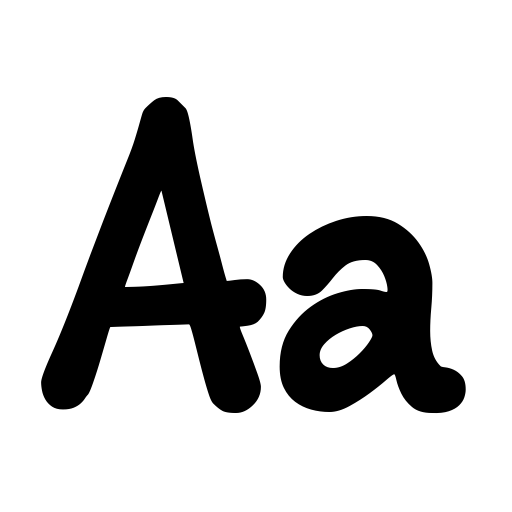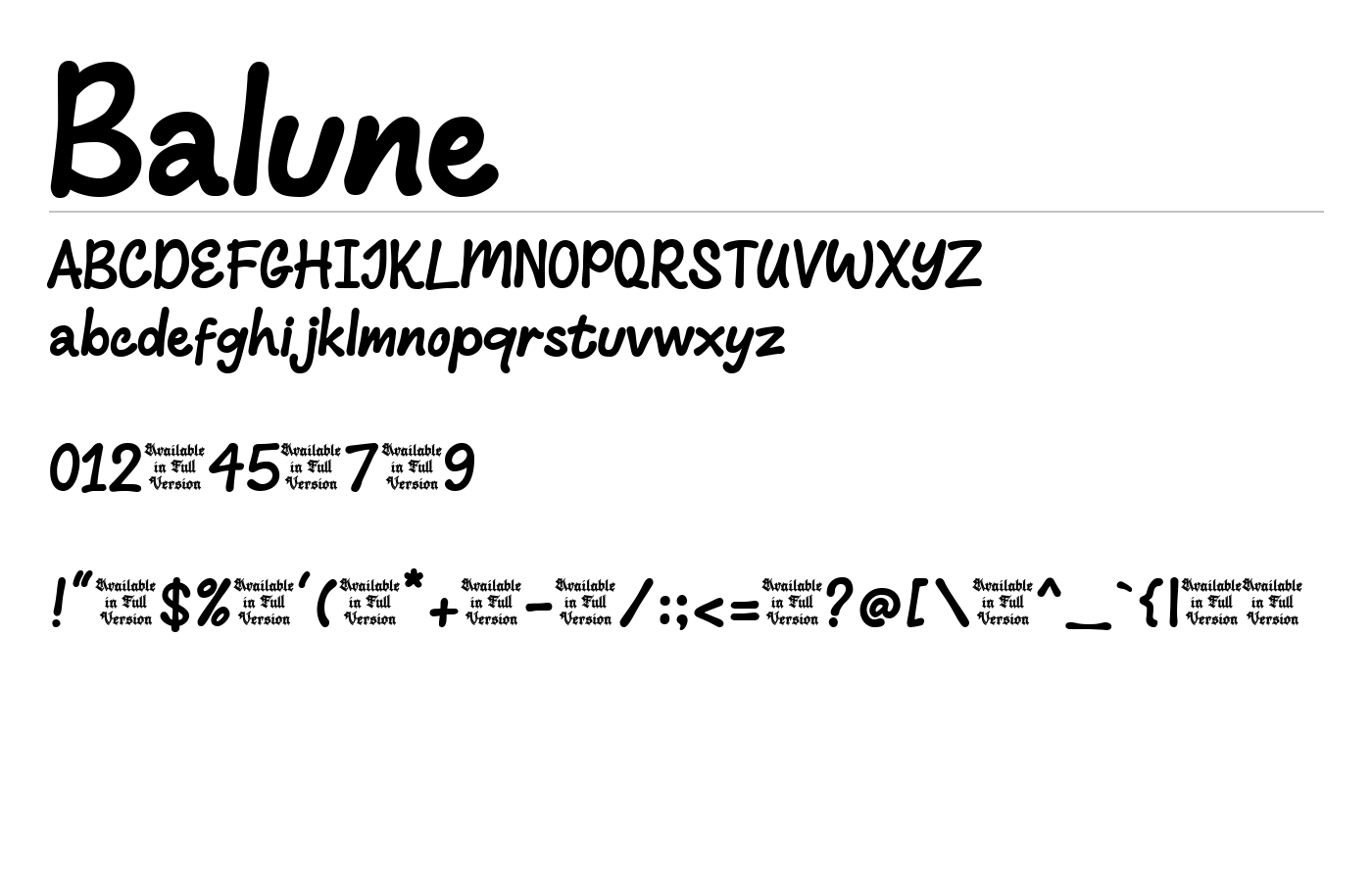
Balune is a playful and casual sans serif font with a handwritten feel, featuring rounded, smooth strokes and slightly uneven shapes that give it a friendly, approachable character. Its medium weight and open, airy spacing make it ideal for informal branding, children’s products, and fun editorial designs where warmth and personality are key. This font works well in headlines and display uses, bringing a cheerful and relaxed vibe to any creative project.
Balune Font
About Balune Font
| Font family | Balune Font |
| Designer | Hurufraktur |